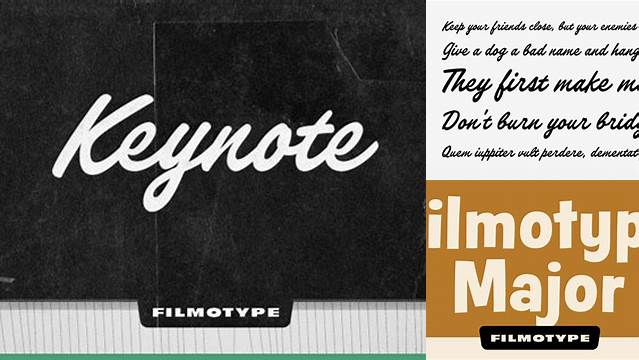
Filmotype Keynote Font Free Download: A Guide
Hey guys! Are you on the hunt for a stylish and retro font to spice up your designs? Look no further! Today, we're diving deep into the Filmotype Keynote font, a classic choice that's been making waves in the design world. We'll explore how you can snag a Filmotype Keynote font free download, where to find it, and everything you need to know to make the most of this awesome typeface. Get ready to add a touch of vintage flair to your projects!
What is Filmotype Keynote Font?
Alright, let's get down to basics. The Filmotype Keynote font is a beautiful script typeface designed by the Filmotype foundry. It's known for its elegant, flowing letterforms, which give off a distinctly mid-century modern vibe. Think of those classic movie posters, vintage advertisements, and charming signage – that's the kind of aesthetic we're talking about. Filmotype Keynote is the kind of font that instantly adds a touch of sophistication and nostalgia to any design. It's perfect for projects where you want to evoke a sense of history, charm, and timeless style. What makes it so special? Well, it's all about the details. The curves are meticulously crafted, the connections between letters are seamless, and the overall design is just plain gorgeous. It's a font that truly stands out and makes your text look like it was professionally made. The font includes a variety of weights and styles, giving you lots of freedom to make different kinds of design projects. It has been in the design world for decades and is still popular today. This is all thanks to the beautiful aesthetic and the endless number of use cases. You can use this font in almost any design project that you need to make.
So, why is this font such a popular choice among designers? Firstly, its versatility is a huge draw. Filmotype Keynote is suitable for a wide range of applications, from creating stunning headlines and logos to crafting elegant invitations and packaging designs. Its graceful script style adds a touch of sophistication that's hard to match. Secondly, the font's vintage appeal is undeniably attractive. In a world saturated with modern, minimalist designs, Filmotype Keynote offers a refreshing throwback to a bygone era. This retro feel can make your designs stand out and capture the attention of your audience. Plus, it's just plain fun to work with! There's something inherently enjoyable about creating beautiful text using a font that feels so classic and timeless. Filmotype Keynote is more than just a typeface; it's a tool that can elevate your designs and help you tell a compelling visual story. Whether you're a seasoned designer or just starting out, Filmotype Keynote is a must-have addition to your font collection. Whether you're working on a personal project or a professional one, this font will surely get your design to the next level.